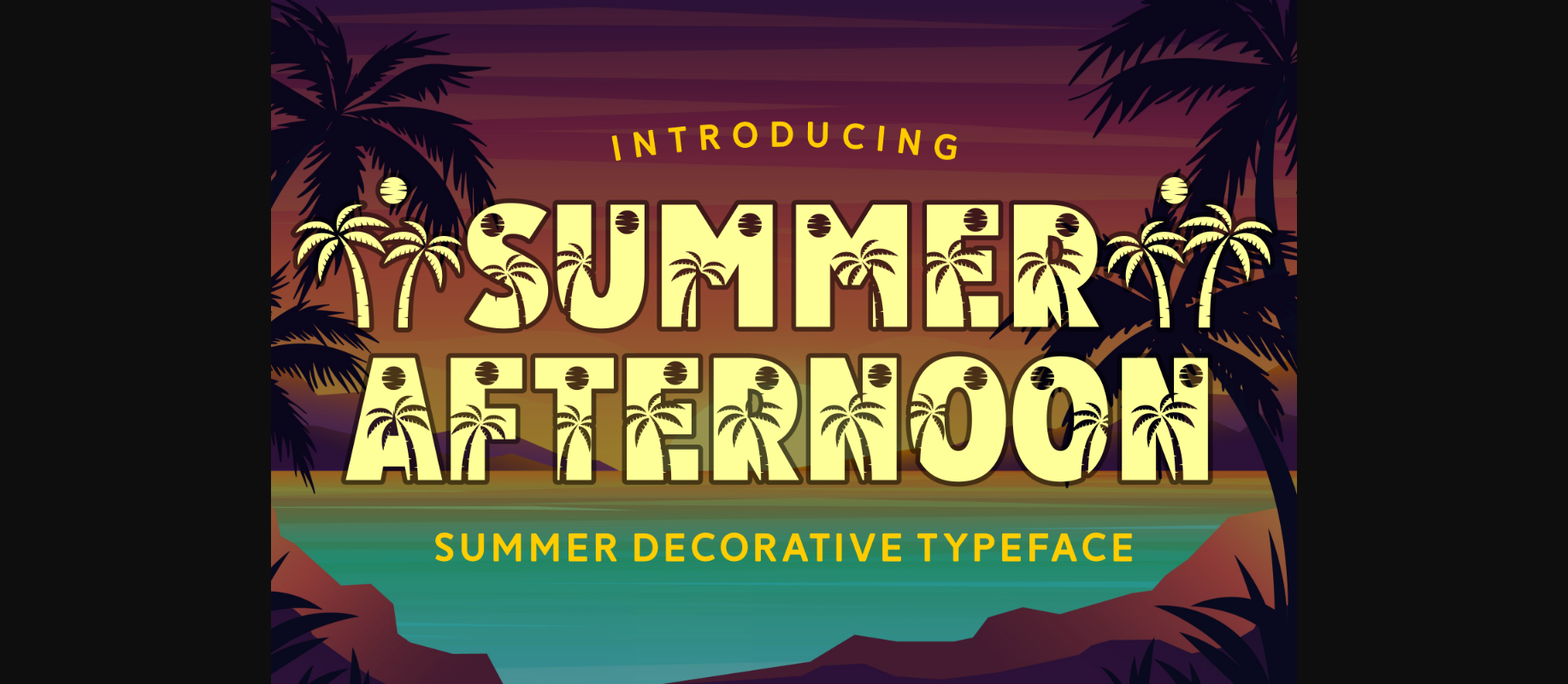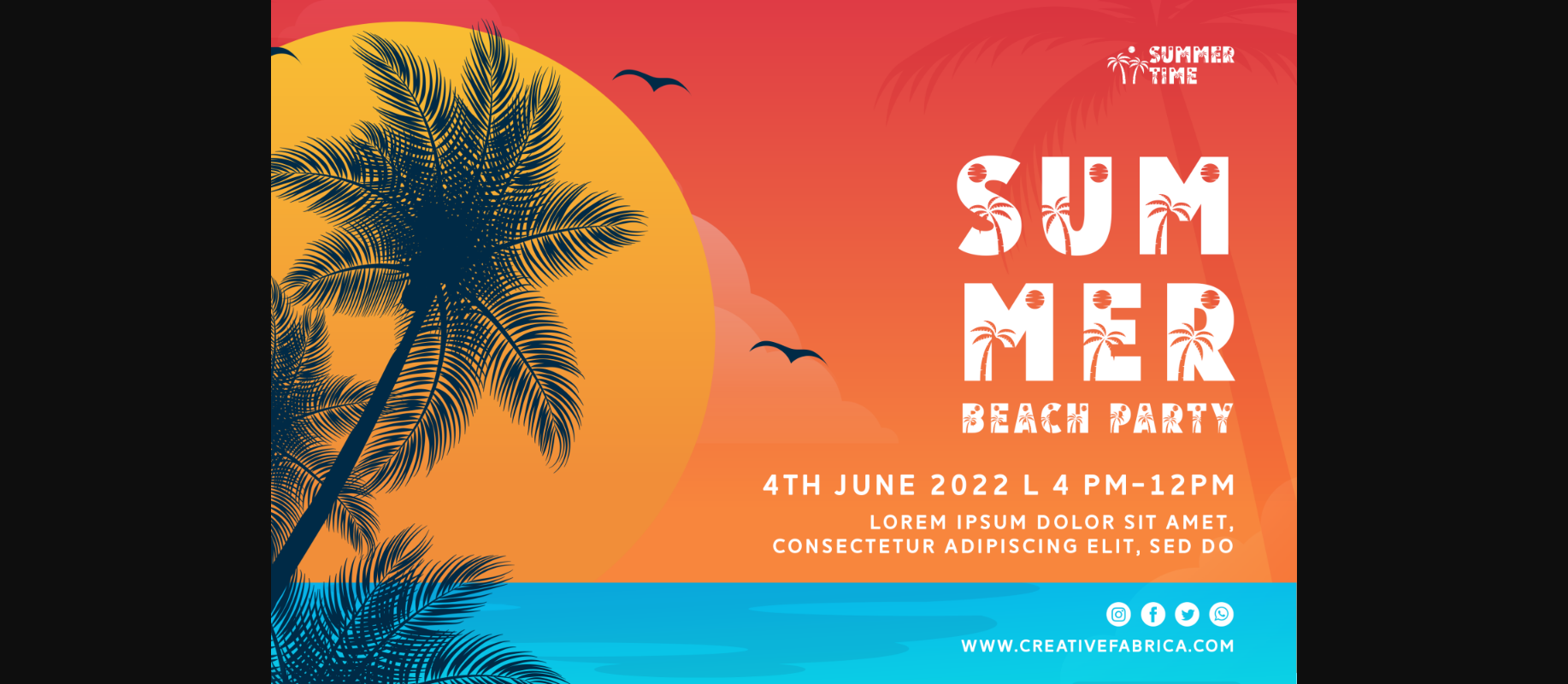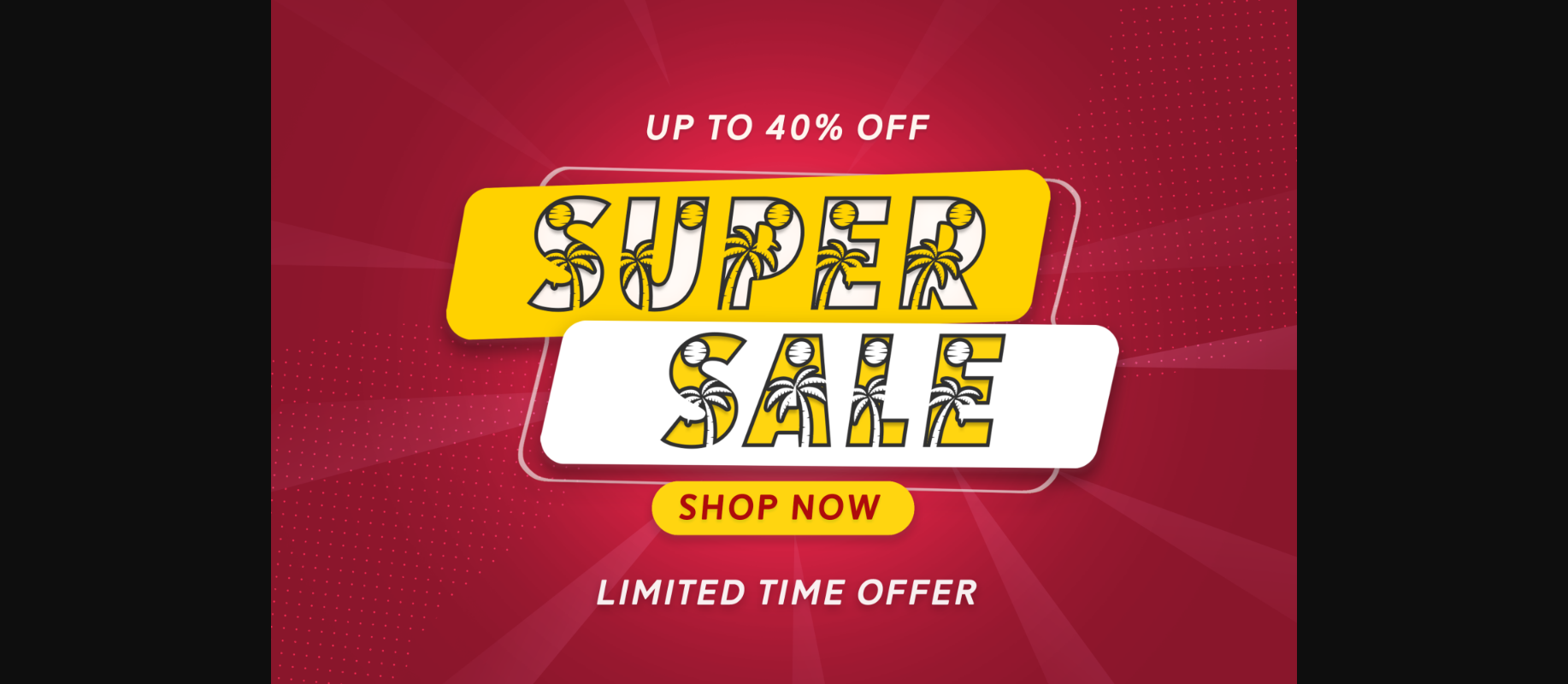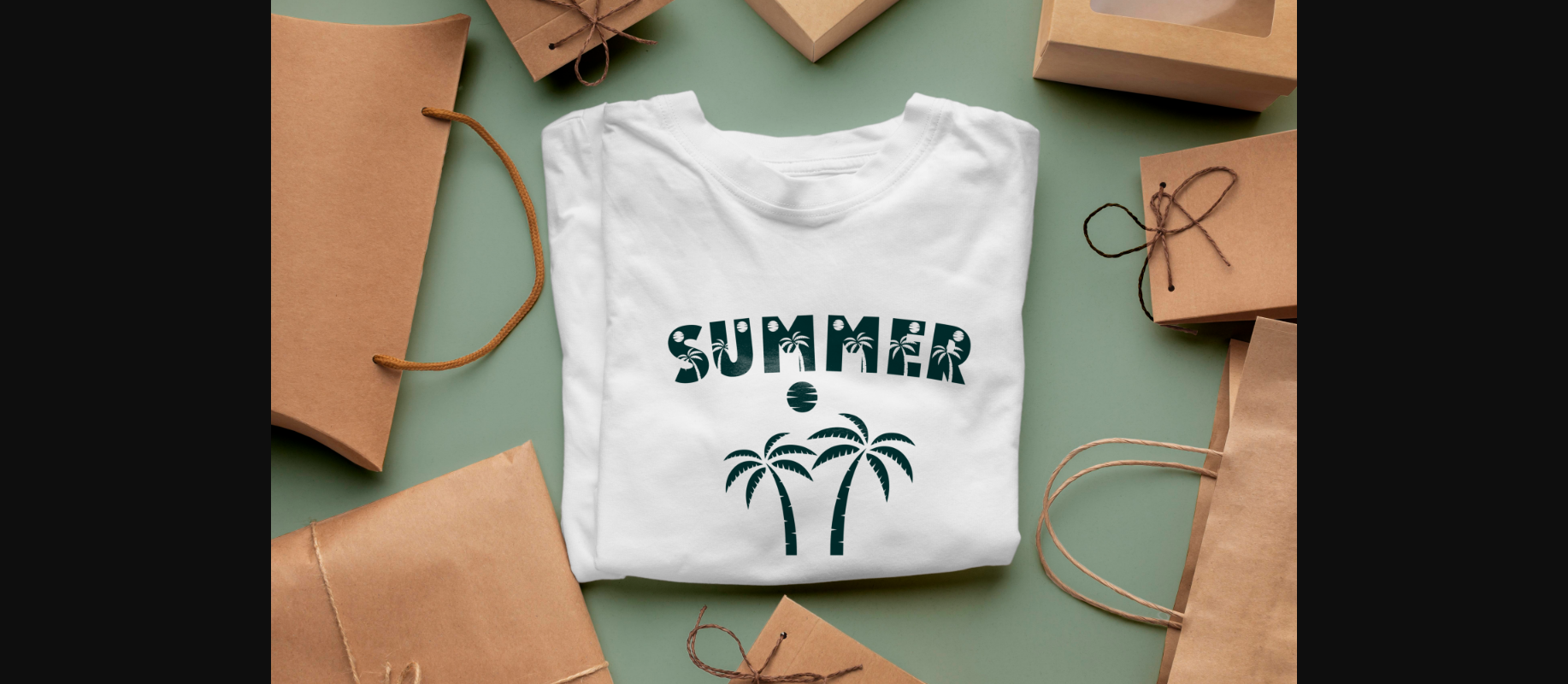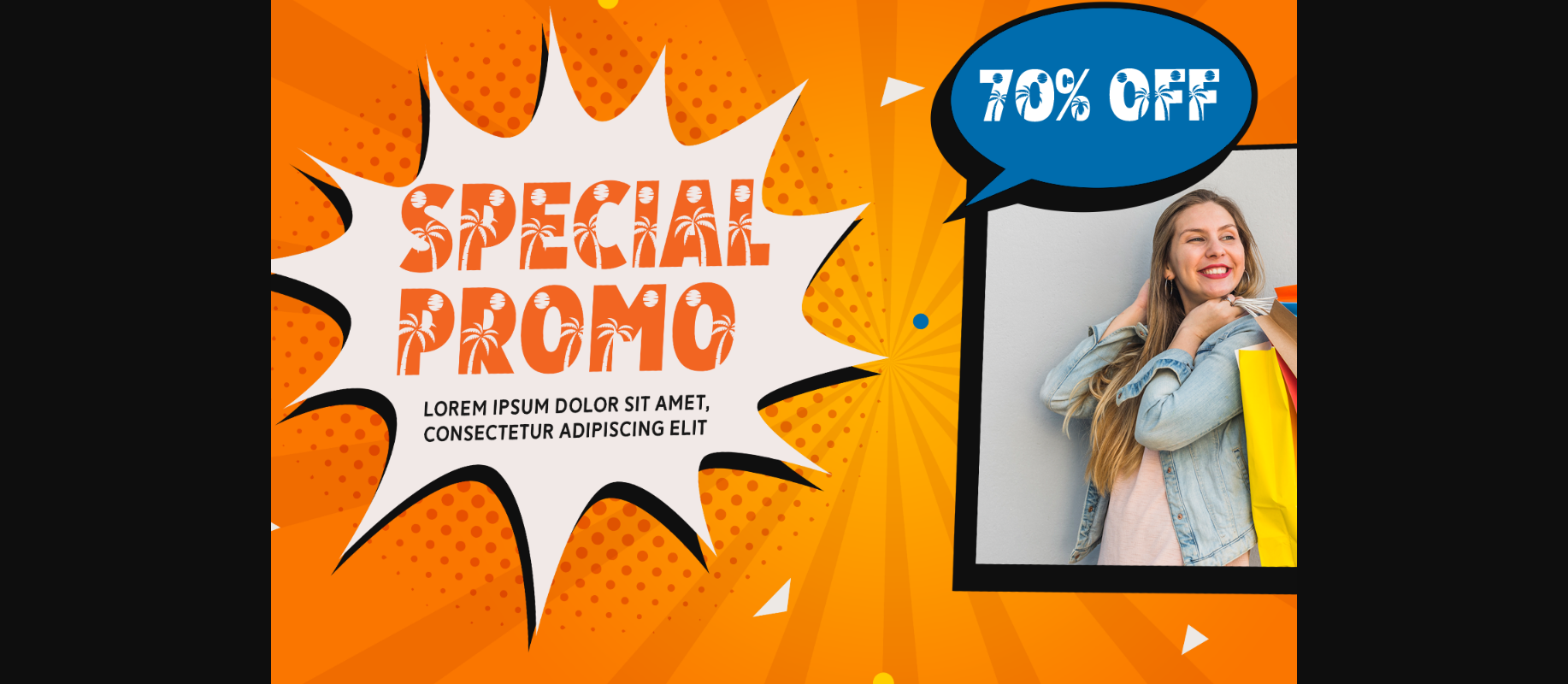
Summer Afternoon Font
About Summer Afternoon Font
Summer Afternoon is a summer decorative typeface with tropical beach vibes. Each character features sunset and palm tree designs. You can mix this decorative font with orange, white, or yellow bright colors because it will add that vacation touch to your summer creations. You can create news, posters, covers, albums, summer sale banners, shop ads, party t-shirts, etc.